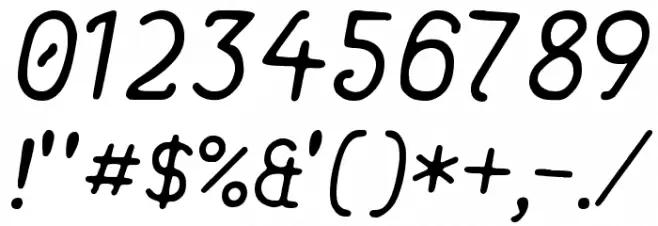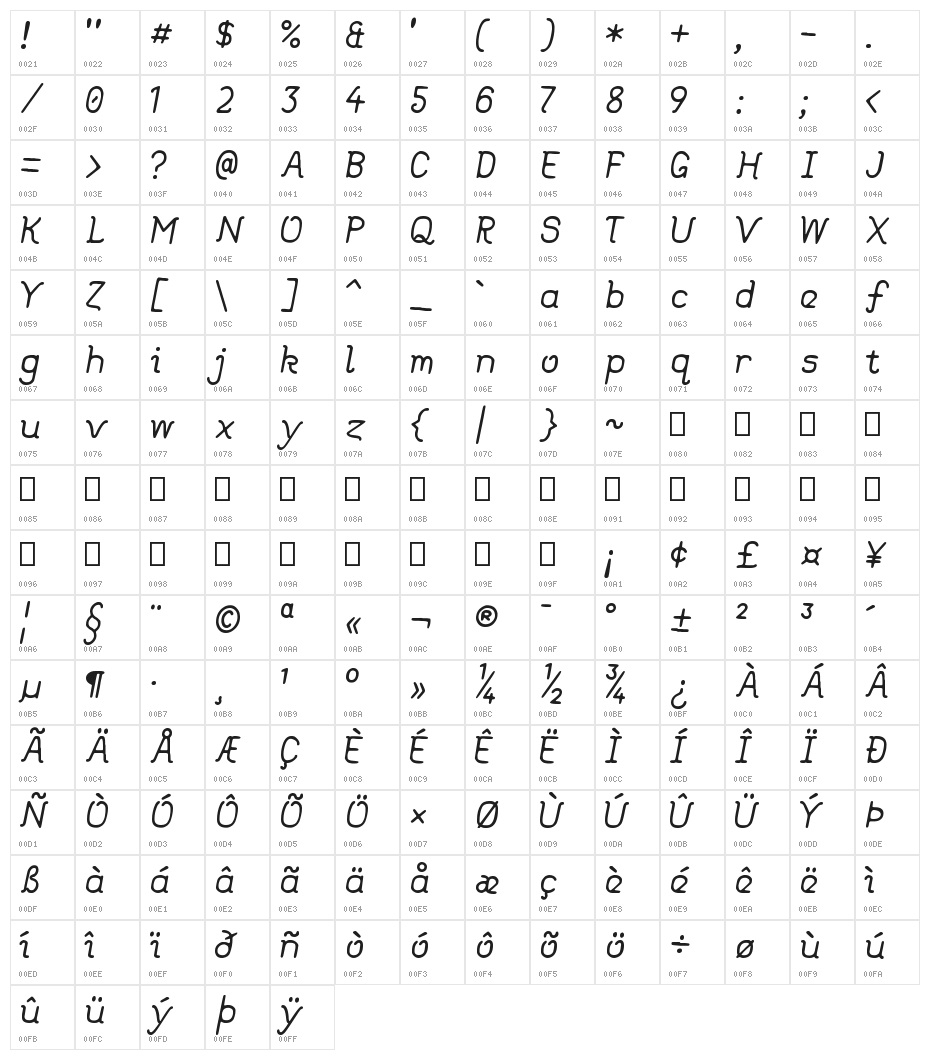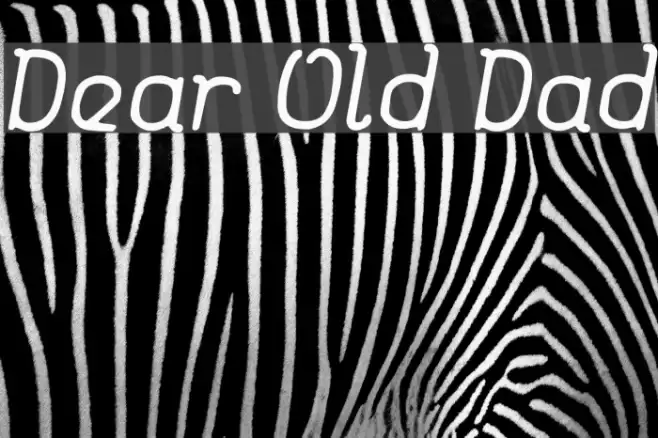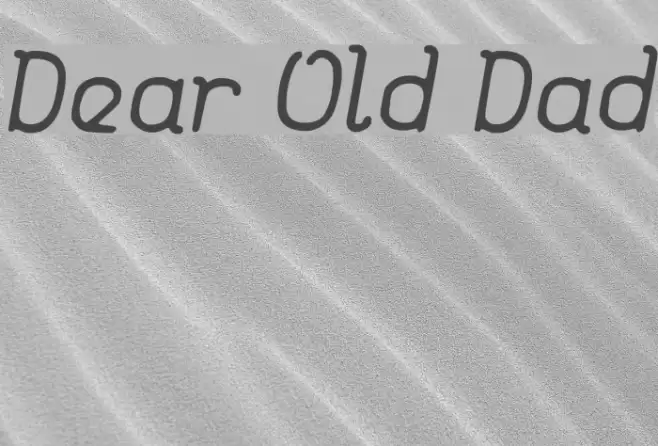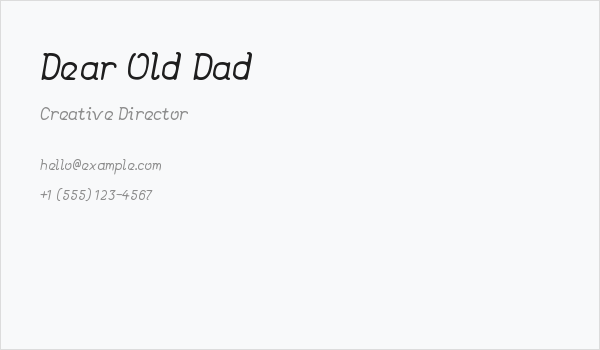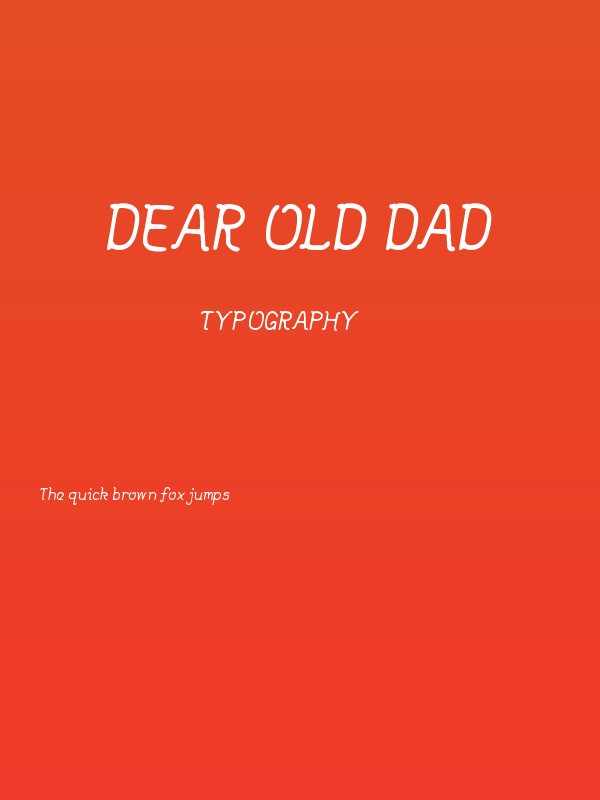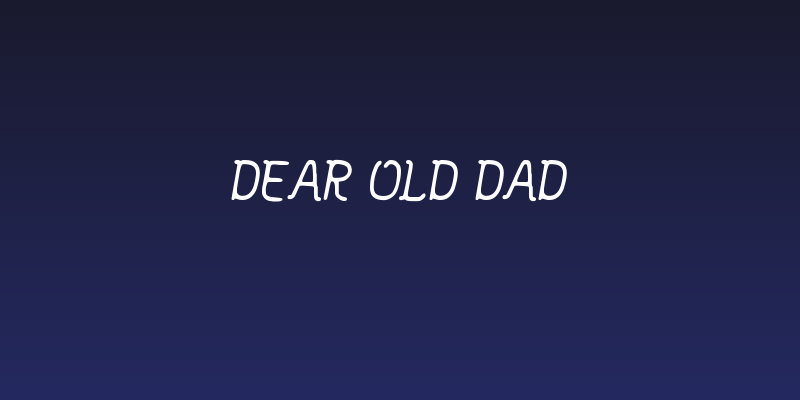
Dear Old Dad Font
Dear Old Dad Description
This font features a playful and informal style, characterized by its handwritten appearance. The letters are slightly slanted, giving a casual and friendly vibe. The strokes are consistent in thickness, providing a uniform look across all characters. The uppercase letters are bold and prominent, while the lowercase letters maintain a smooth and flowing form. Numbers and special characters are crafted with the same playful touch, ensuring a cohesive design throughout. This font is ideal for projects that require a personal and approachable feel.
| Proposed Projects | Greeting cards, personal invitations, children's books, and informal branding materials. |